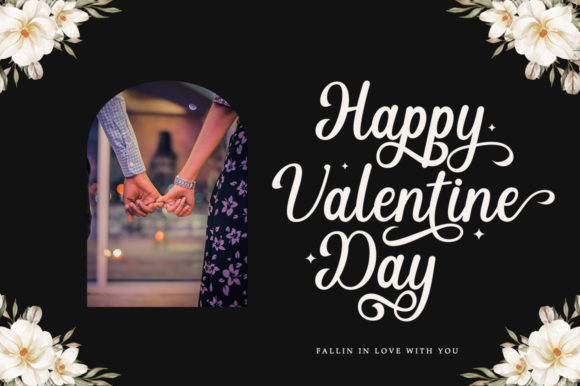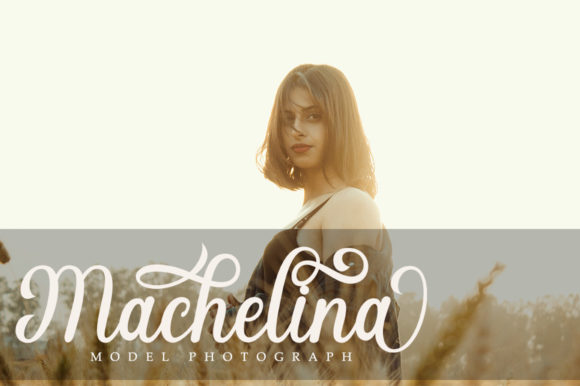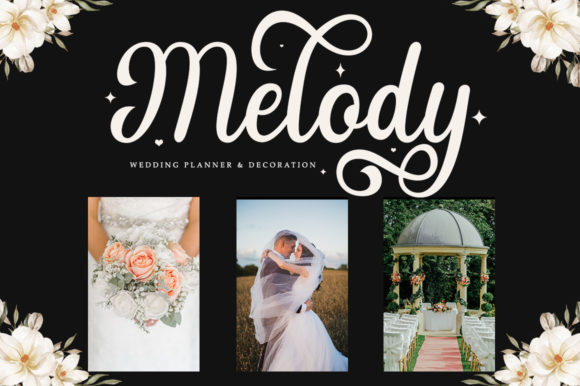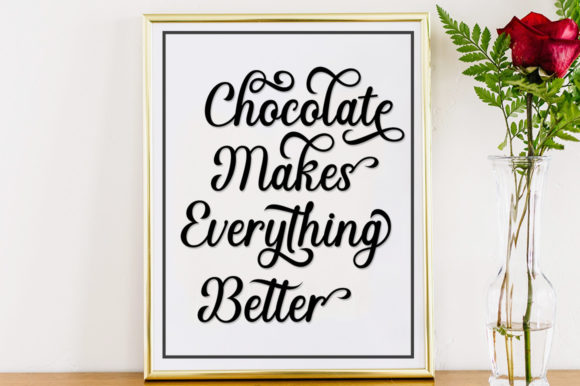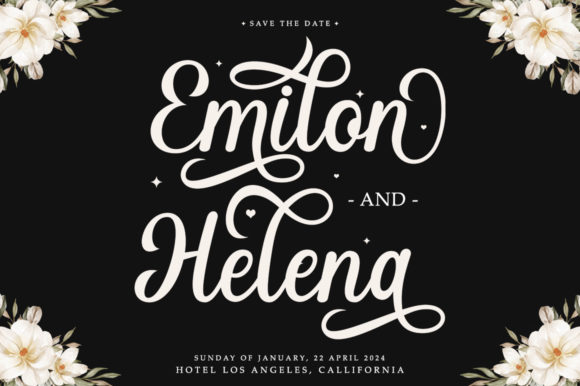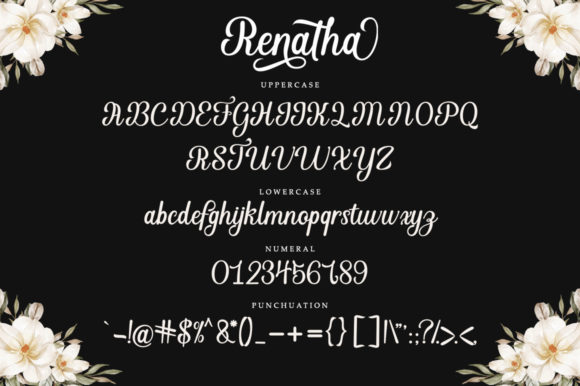
Introduction to Renatha Font
As I sat in my studio, staring at a blank canvas, I was determined to bring my creative vision to life. I wanted to add a touch of elegance to my design, something that would make it truly stand out. That’s when I stumbled upon the Renatha Font, a gorgeous and delicate script font that has since become my go-to design resource.
The Renatha Font is more than just a pretty face – it’s a high-quality design tool that can elevate any creative project. Whether you’re working on a wedding invitation, a branding campaign, or a social media graphic, this font is sure to impress. With its PUA encoding, you can access all of the glyphs and swashes with ease, making it a versatile and valuable asset for designers.
Key Features of Renatha Font
- High-quality design resource suitable for creative projects, offering a unique and modern look.
- Transparent background, making it easy to customize and integrate into various design elements.
- Includes multiple font styles and weights, allowing designers to achieve the perfect balance for their creative project.
- Designed with precision, the Renatha Font is a valuable design resource for professionals and hobbyists alike.
- Perfect for use in logos, branding, packaging, and other creative projects where a high-quality font is essential.
Honest Review: Renatha Font
As a designer, I’m always on the lookout for high-quality design resources to elevate my creative projects. Recently, I stumbled upon the Renatha Font, and I’m excited to share my thoughts on this free download.
What works well: ✨ The Renatha Font is incredibly versatile, with a beautiful script style that’s perfect for adding a touch of elegance to any design. The font is also highly legible, making it suitable for body text as well as headings. I love how the font’s subtle flair adds a creative twist to my designs.
What I wish was different: ⚠️ One limitation I’ve noticed is that the Renatha Font doesn’t have a transparent background option, which can be a bit restrictive for designs that require a more subtle look. Additionally, the font family is relatively small, with only a few weights and styles available.
Overall impression: I’m really impressed with the Renatha Font, and I’ve already started using it in several of my design projects. While it may not be the most comprehensive font family, its unique style and high quality make it a valuable addition to any designer’s toolkit.
Pros and Cons:
- ✨ Highly legible and versatile
- ✨ Beautiful script style
- ⚠️ No transparent background option
- ⚠️ Limited font family sizes
Tips for Getting the Most Out of Renatha Font
Some common use cases for Renatha Font include:
1. Creating elegant headings and titles.
2. Adding a touch of sophistication to business presentations.
3. Designing creative project materials, such as posters and flyers.
Is the Renatha Font a high-quality design resource?
Yes, the Renatha Font is a high-quality design resource, carefully crafted with attention to detail and a focus on aesthetics. With its unique character set and versatile design, it’s perfect for designers looking to add a touch of elegance and sophistication to their creative project. Whether you’re working on a logo, typography project, or other design elements, the Renatha Font is an excellent choice.